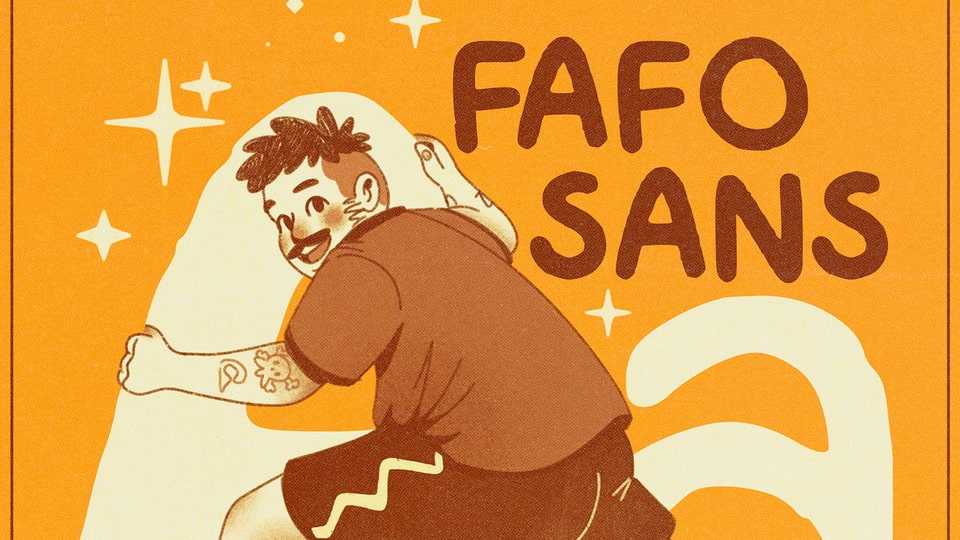
Download Fafo Sans font, a typeface that embraces the simplicity and authenticity of hand-drawn design. With an organic touch and fluid strokes, Fafo Sans captures the essence of spontaneity, creating a typeface that feels both approachable and genuine.